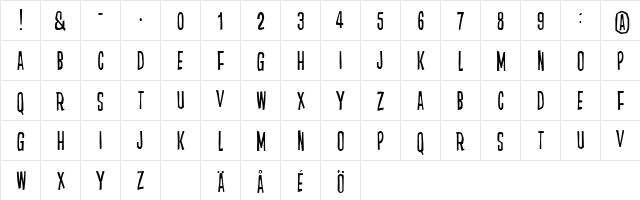
Nuderflaken Regular
Design Context for Nuderflaken Typeface
Nuderflaken is a composed and adaptable typeface that performs quietly and consistently across a wide range of design contexts.